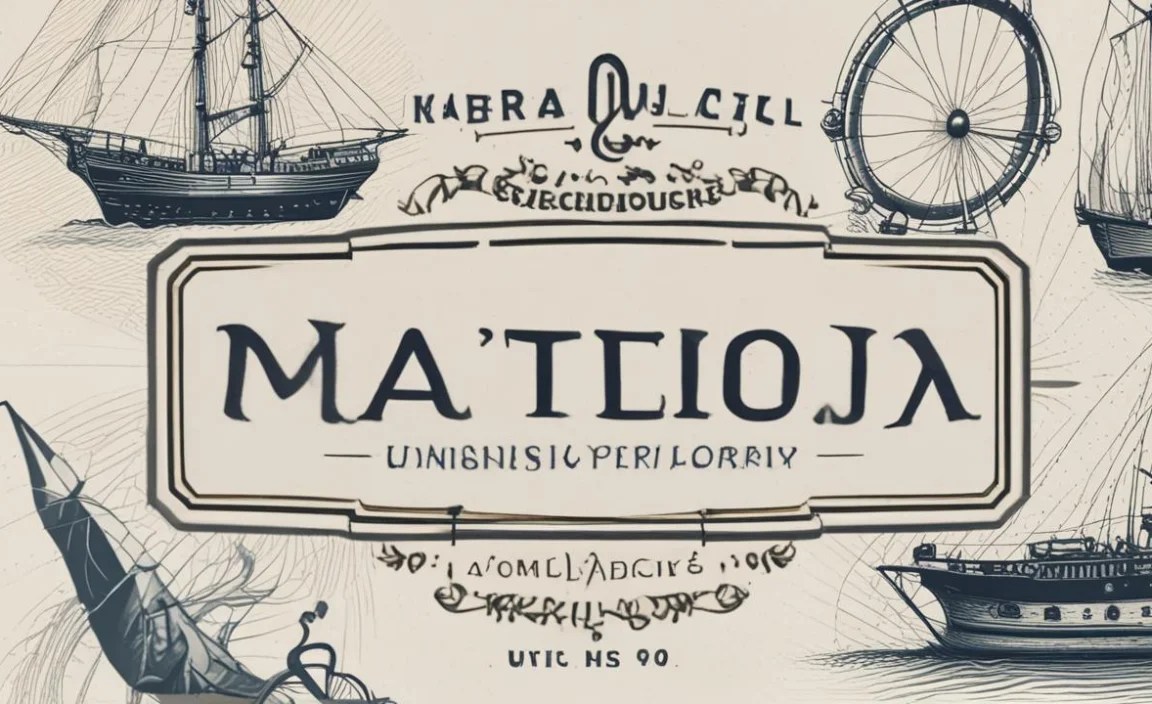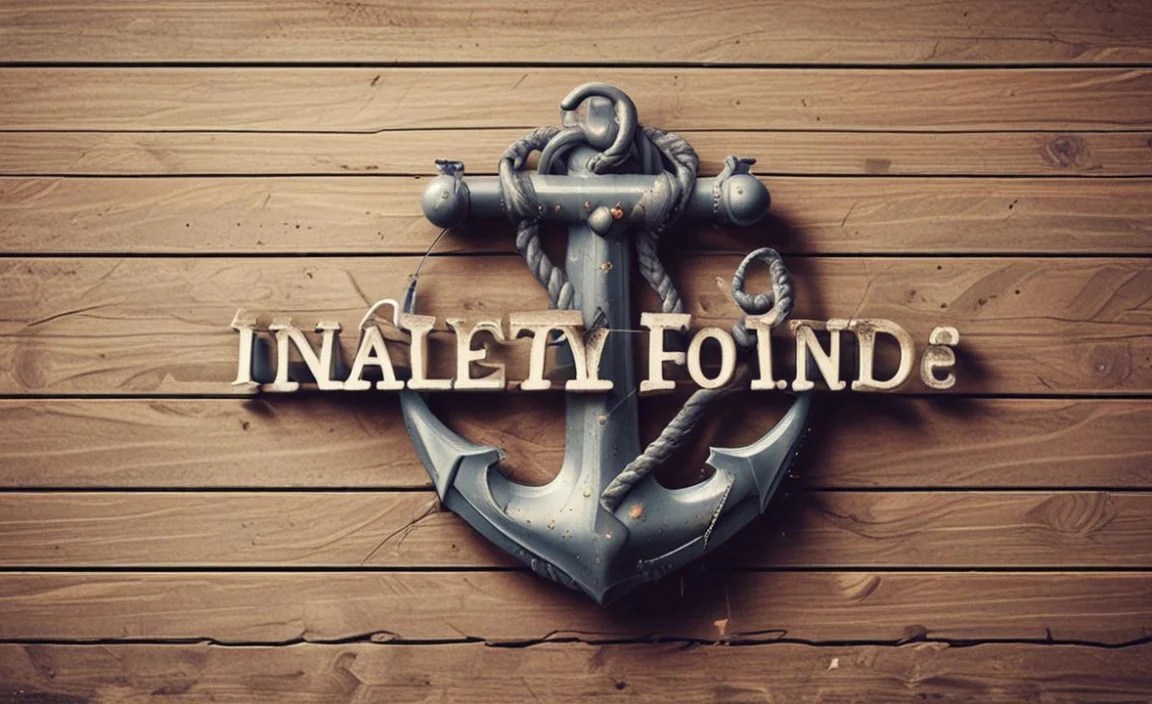
Nautical Font captures the essence of the sea with its distinctive maritime style. This font evokes the feeling of adventure and exploration, making it a favorite for designs related to the ocean, sailing, and coastal themes. With its bold and decorative elements, Nautical Font stands out in various creative projects, from logos to event invitations.
Nautical Font Information
| Name | Nautical |
| Style | Decorative |
| Designer | There isn’t a single specific designer |
| Type | Decorative Serif/Sans-serif |
Where Nautical Font Is In Use
Nautical Font’s unique maritime style makes it popular for various design contexts. Its decorative elements fit perfectly into projects that require a touch of the sea. Notable uses include:
- Coastal-themed branding
- Event invitations and posters
- Nautical decor and signage
- Logos for marine businesses
- Packaging for seaside products
Nautical Font FAQs
1. Why Is The Nautical Font Popular In Coastal-Themed Designs?
Nautical Font’s maritime-inspired design elements make it ideal for coastal and ocean-themed projects. They bring a sense of adventure and the sea to any design.
2. What Trends Are Shaping The Future Of Nautical Font?
The future of Nautical Font lies in its use in modern coastal branding, event design, and digital media, where its unique style continues to stand out.
3. When Did Nautical Font Become Popular?
Nautical Font gained popularity with the rise of coastal and maritime-themed designs, offering a perfect blend of tradition and modernity.
4. What Free Font Resembles Nautical Font?
Fonts like “Pirate Ship” and “Sea Dog” are often considered close free alternatives for those seeking a similar maritime style.
5. How Many Fonts Are In The Nautical Font Family?
The Nautical Font family includes various styles, from Regular to Bold, Italic, and Script, with both condensed and extended versions available.
6. What Are The Different Versions Of Nautical Font?
Nautical Font includes Regular, Bold, Italic, Bold Italic, Condensed, Extended, and Script versions, providing a versatile range for different design applications.